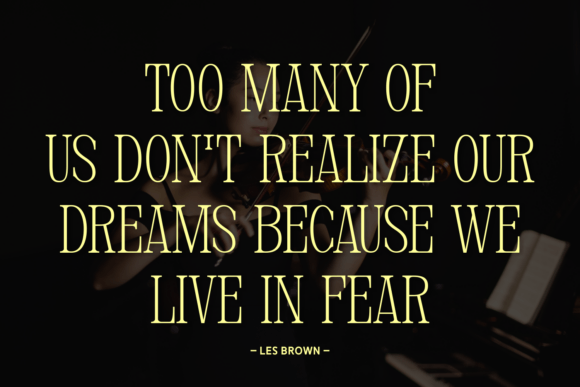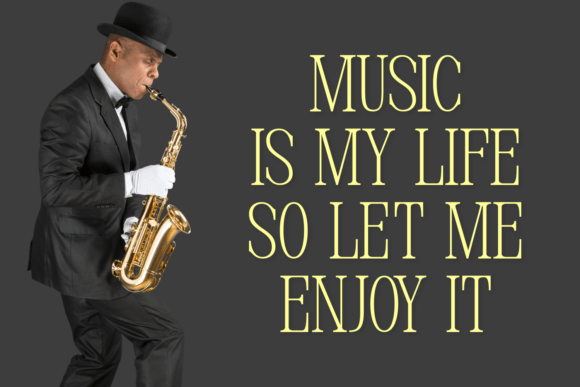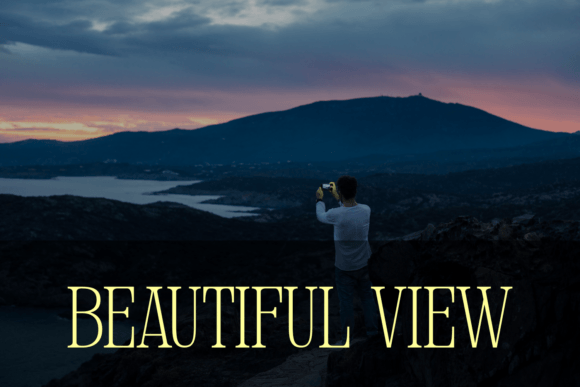
Introduction to Harpist Font
Harpist is an elegant serif font that embodies grace and sophistication.
With delicate curves and refined details, itโs perfect for luxury branding, wedding invitations, and editorial designs Its timeless style and impeccable readability make it ideal for creating a polished and sophisticated visual identity.
Key Features of Harpist Font
Why Choose Harpist Font?
Harpist Font offers exceptional quality and versatility, making it a valuable addition to your design toolkit. Whether you’re creating for personal projects or commercial use, Harpist Font delivers professional results.